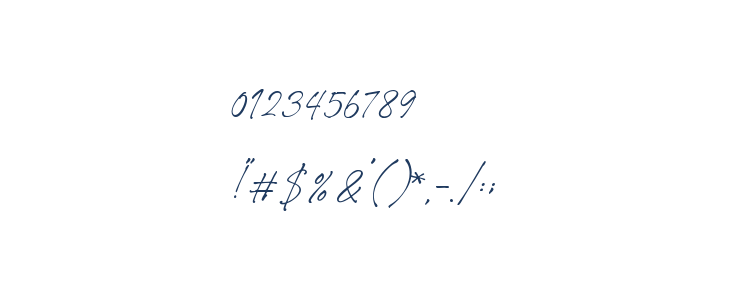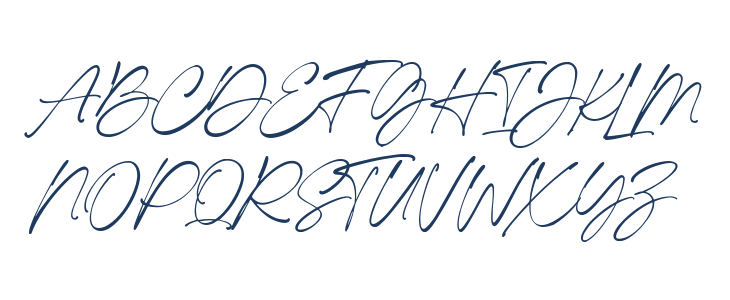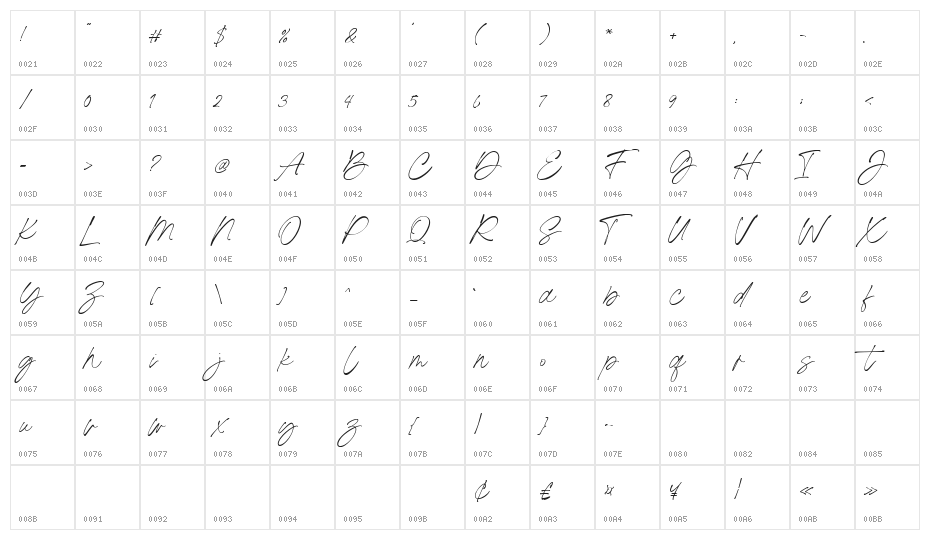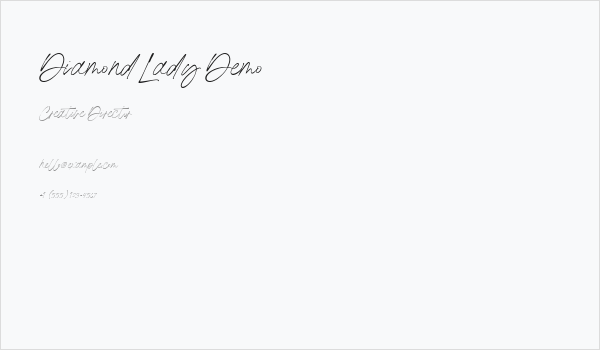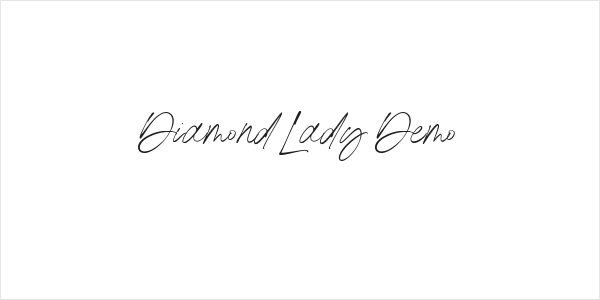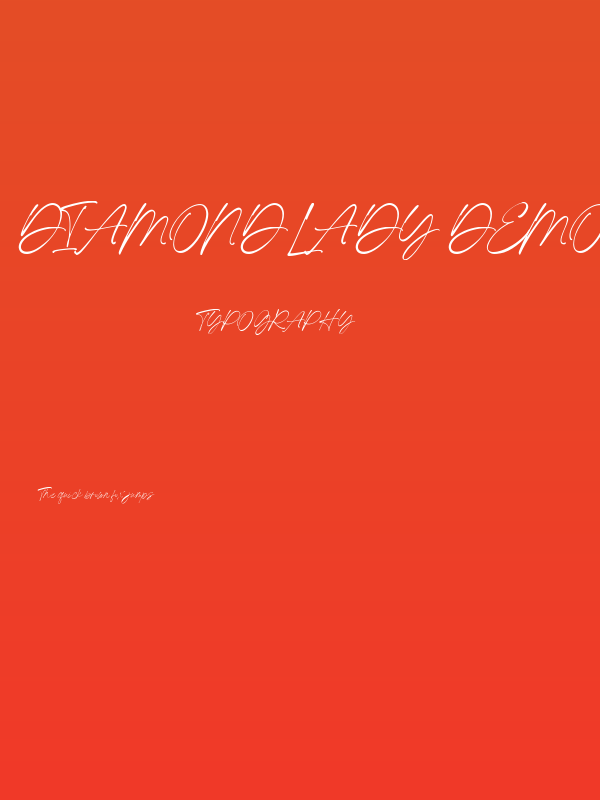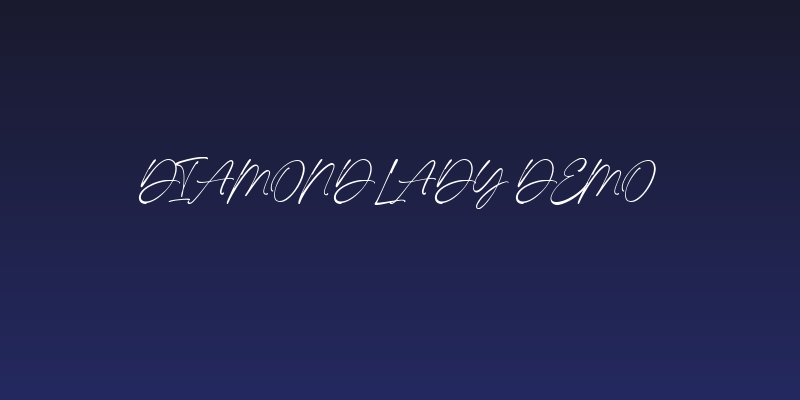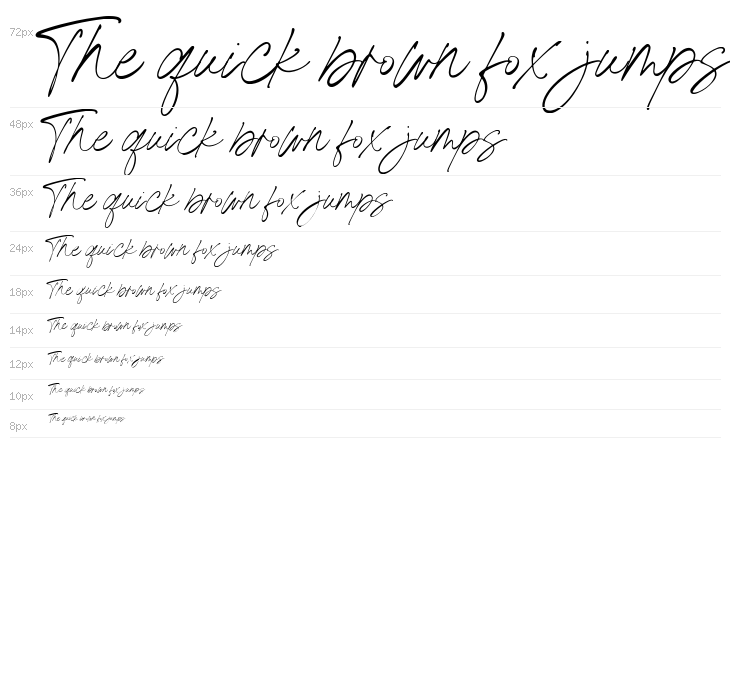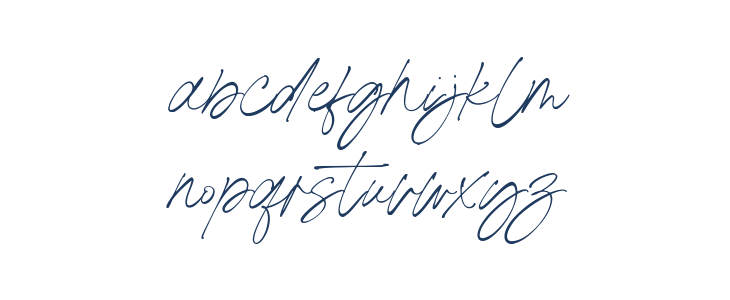
Diamond Lady Demo Font
Diamond Lady Demo Description
A flowing, elegant script font with a handwritten appearance, featuring thin, fluid strokes and a natural, slightly irregular baseline. The characters are connected in a cursive style, with high contrast between thick and thin lines, and a casual yet sophisticated feel.
| Overall Style | Decorative, Elegant, Handwritten |
| Use Case | Logos, Invitations, Headlines, Decorative text |
| Proposed Projects | Wedding invitations, personal branding, greeting cards, quotes, feminine logos, event posters. |